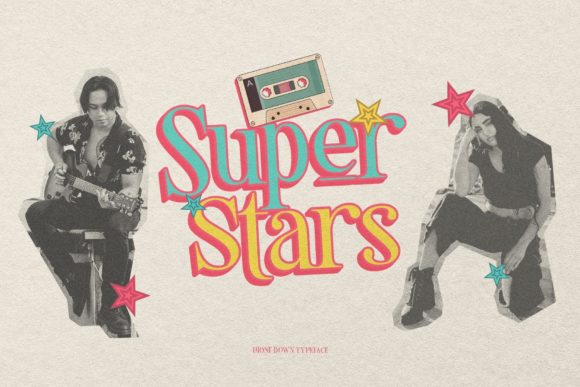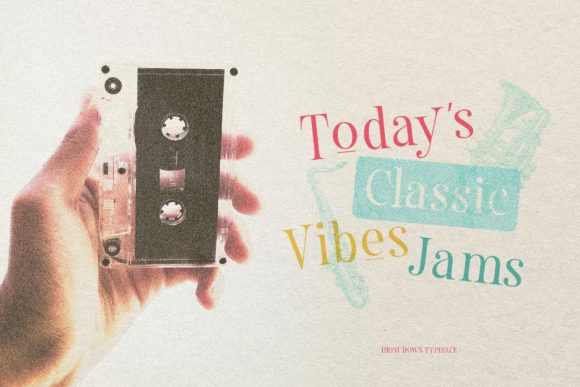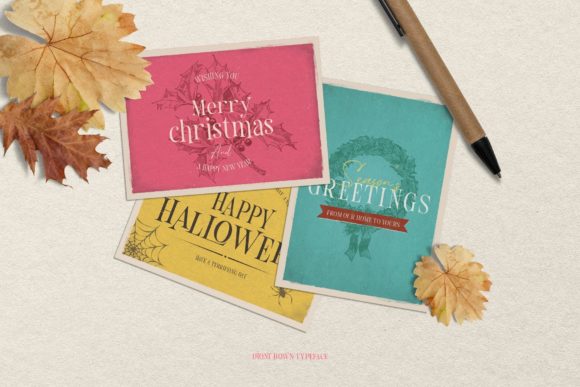
Introduction to Lhont Down Font
Have you ever been in the midst of a creative project, pouring your heart and soul into every detail, only to realize that the right font is the missing piece that brings it all together? For designers, this moment is all too familiar. It’s the a-ha moment that turns a good design into a great one. And that’s exactly where the Lhont Down Font comes in – a bold and stylish serif font that’s about to become your new go-to design resource.
With its high-quality design and versatility, the Lhont Down Font has the potential to elevate any creative project, from brochures and posters to websites and social media graphics. Whether you’re looking for a font to make a statement or simply want to add some sophistication to your design, the Lhont Down Font is an incredible asset to have in your library.
Key Features of Lhont Down Font
- Unique, modern design with a transparent background, ideal for creative projects.
- High-quality font with precise details, suitable for use in various sizes and resolutions.
- Designed to be highly legible, even at small font sizes, making it perfect for digital and print projects.
- Includes a range of characters, including uppercase and lowercase letters, numbers, and special symbols.
Honest Review: Lhont Down Font
I recently had the chance to work with the Lhont Down Font, and I must say, it was a delightful experience. This design resource is perfect for any creative project that requires a unique touch. ✨
- High Quality: The font’s quality is top-notch, with crisp and clear letters that are easy to read.
- Transparent Background: The font’s transparent background allows for seamless integration with other design elements.
However, there are a few limitations to keep in mind ⚠️:
- Limited Customization Options: While the font is highly customizable, there are some limitations to the extent of customization available.
- No Support for Complex Scripts: Unfortunately, the font doesn’t support complex scripts, which may be a concern for designers working on projects that require multilingual support.
Overall, I’m impressed with the Lhont Down Font. Its unique design and high quality make it a valuable addition to any design resource library. If you’re looking for a font that will add a touch of creativity to your project, I highly recommend giving it a try.
Tips for Getting the Most Out of Lhont Down Font
To get the most out of the Lhont Down Font, consider using a transparent background to create a modern and sleek design. You can also experiment with different font sizes and styles to create a visually appealing effect.
The Lhont Down Font is a versatile design resource that can be used in a variety of creative projects, including logos, business cards, and social media graphics. Its high-quality design makes it perfect for use in professional and personal projects alike.